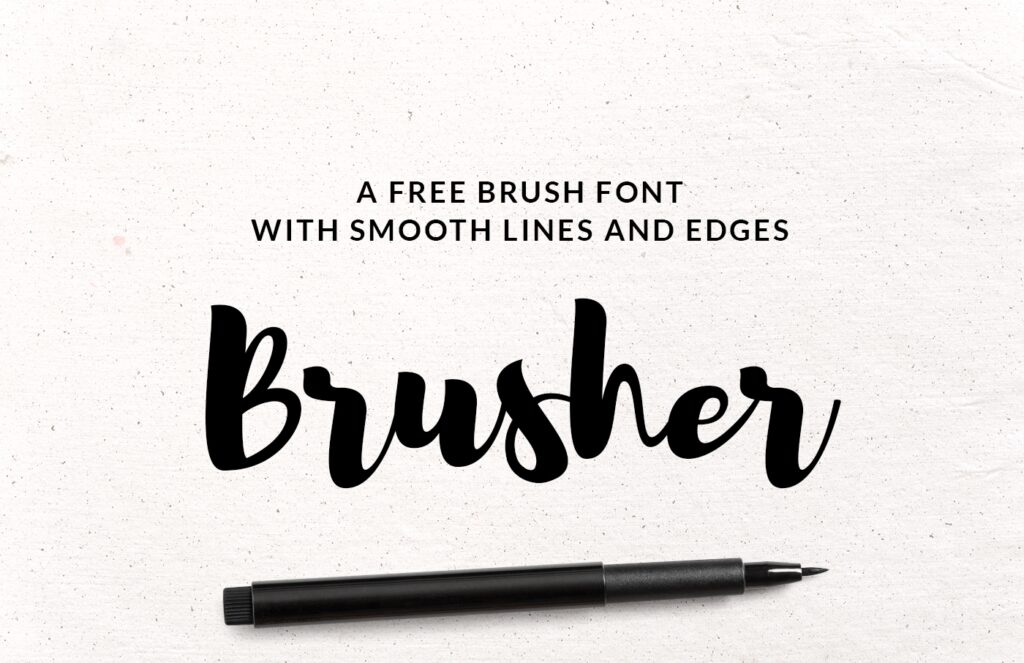
Brusher is a bold and modern brush-lettered font which includes 100 glyphs crafted with precise strokes and smooth lines that will give your text a naturally hand drawn look.